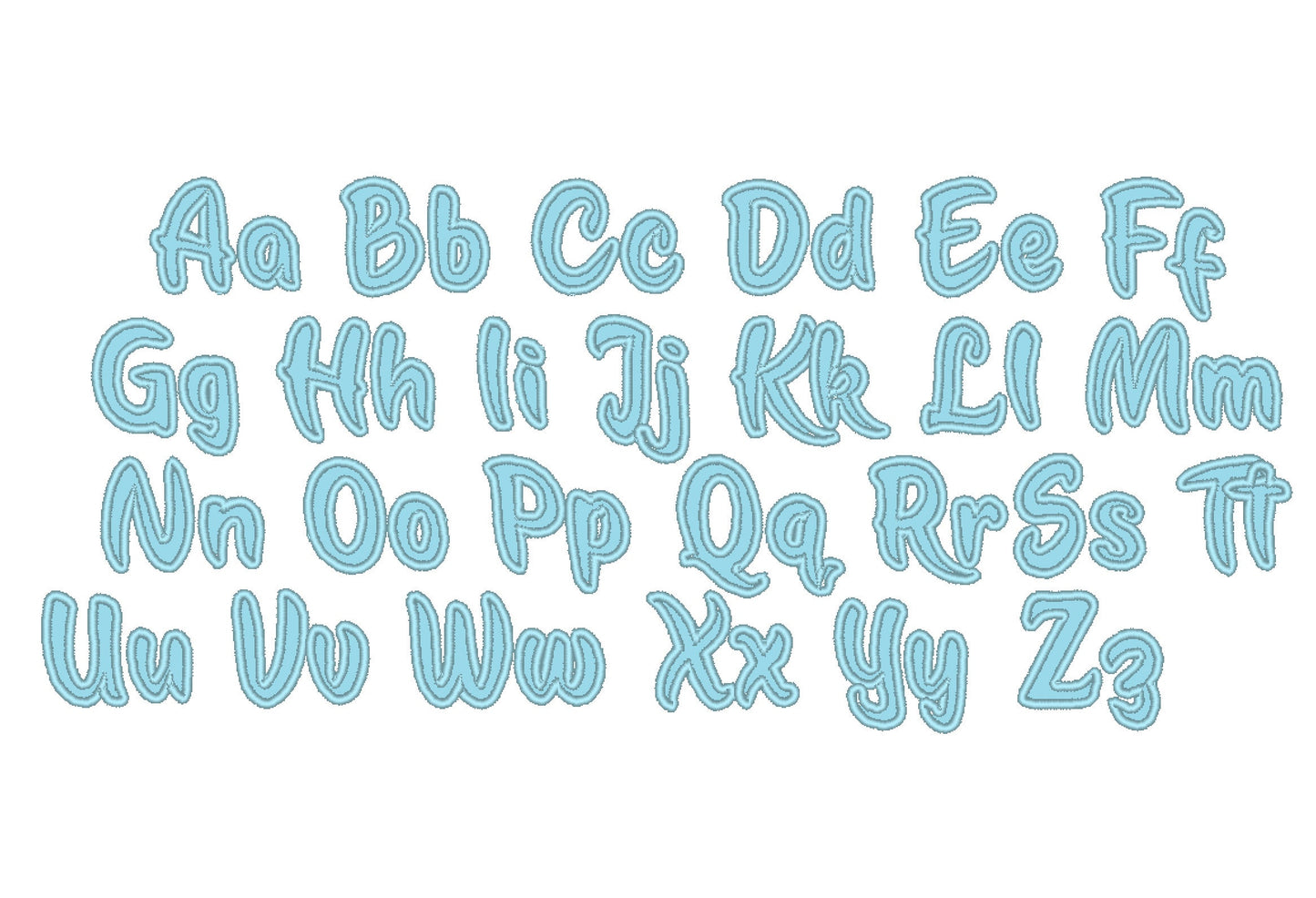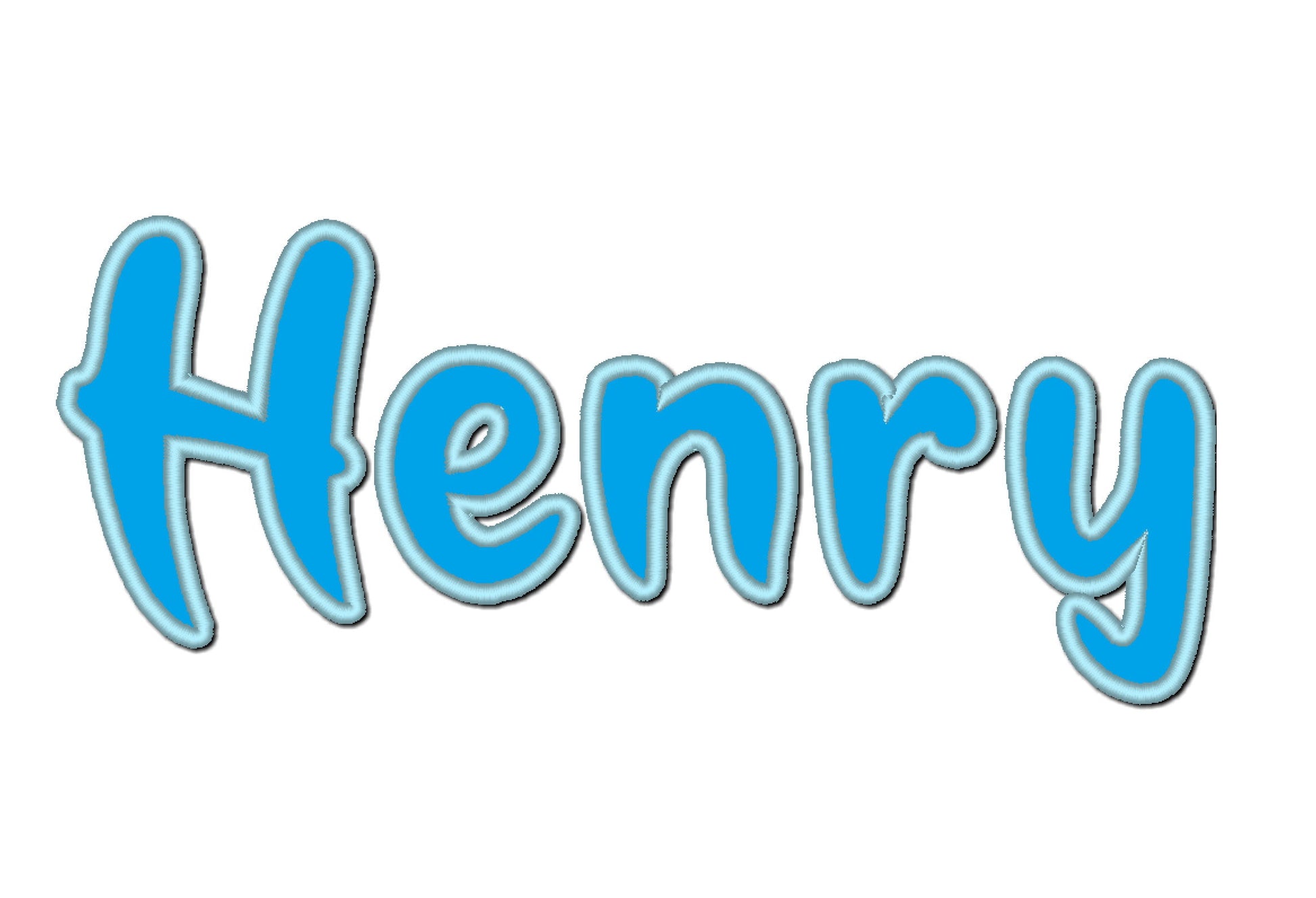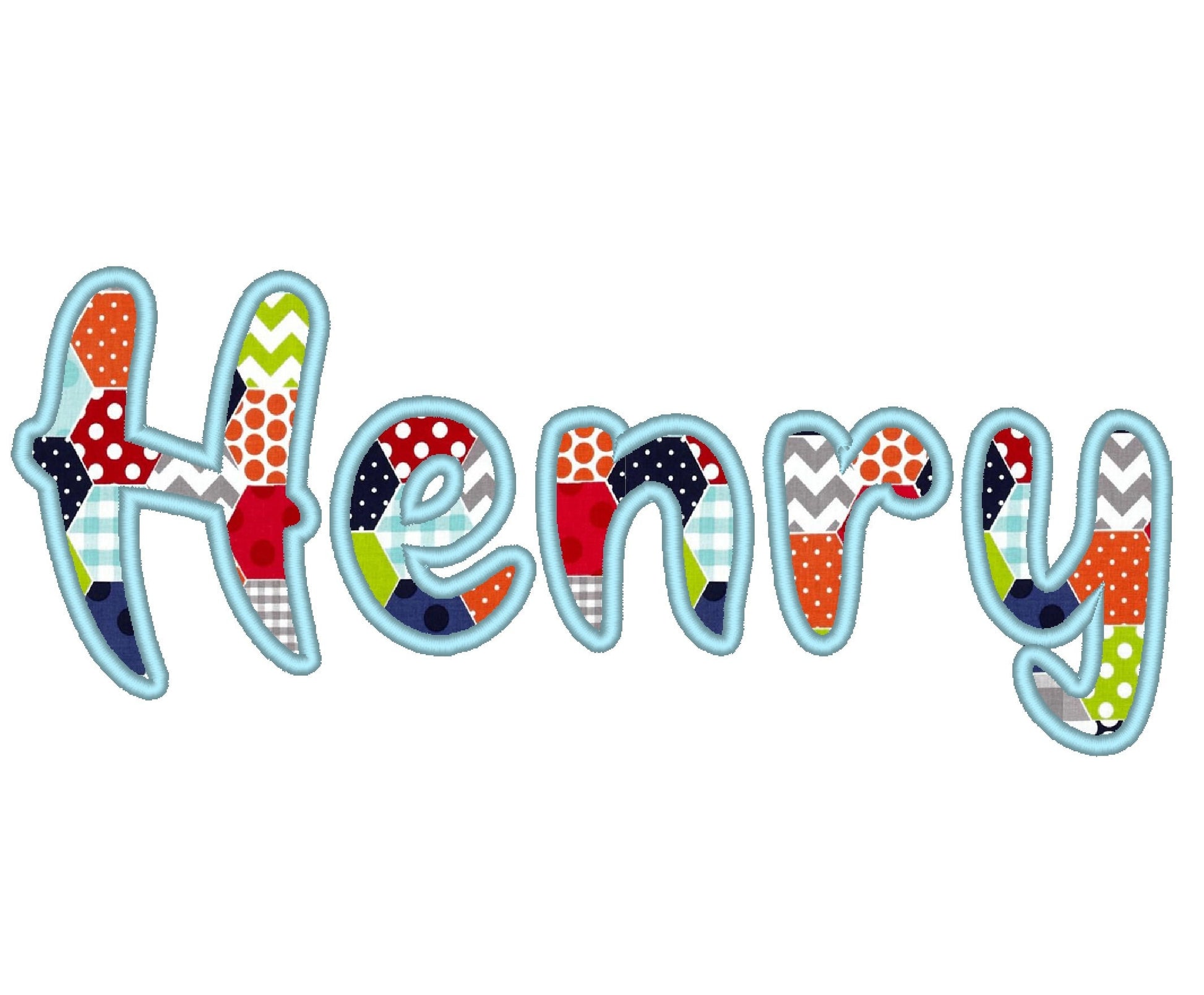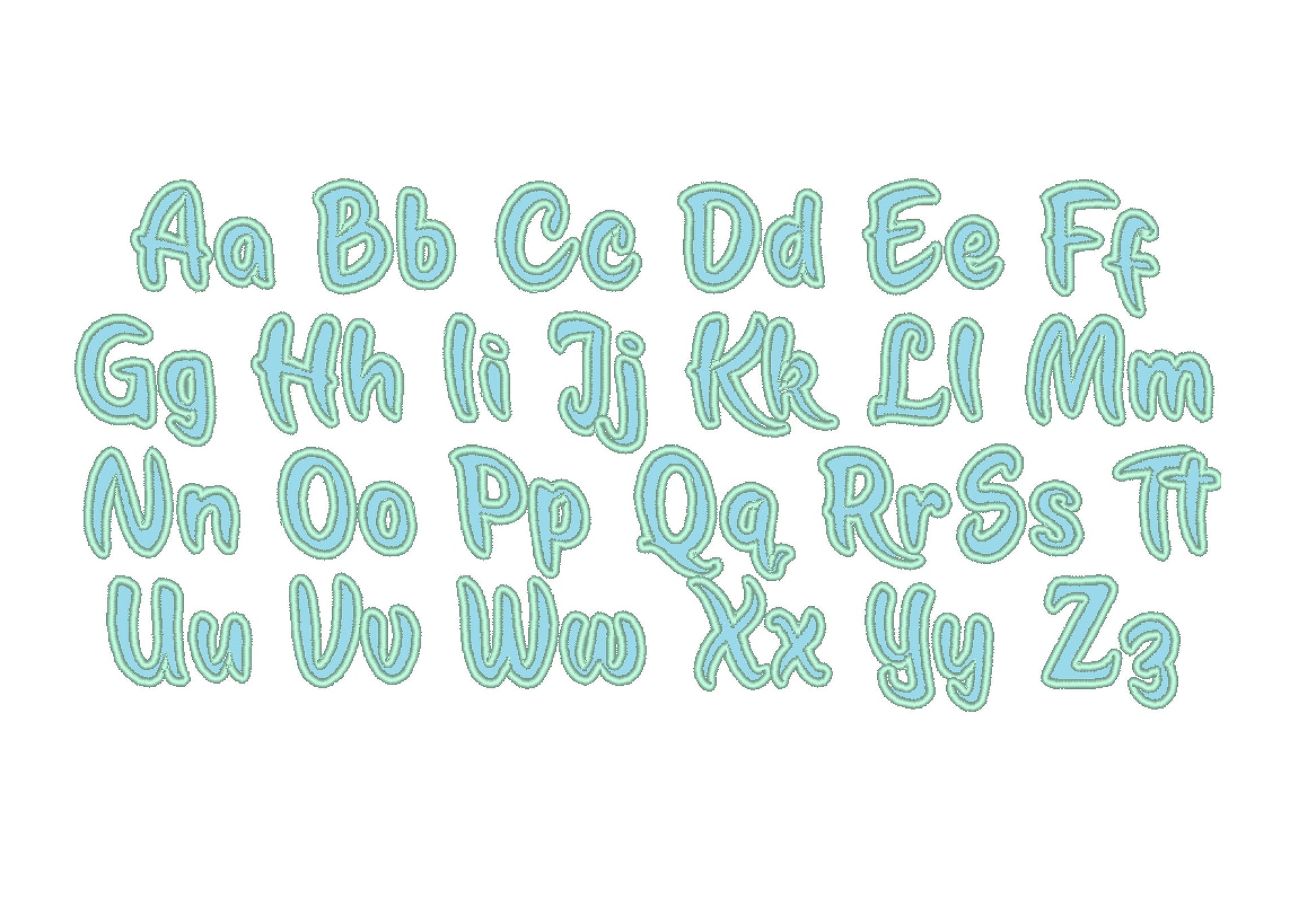
Monogram applique Font
Every letter is stitched as an applique. Uppercase and lowercase letters A to Z in seven sizes: 1.8, 2.1, 2.5, 3.1, 3.5, 3.9 and 4.1 inches.
- Applique monogram font
- Uppercase and lowercase letters A to Z
- 7 sizes, 1.8 to 4.1 in